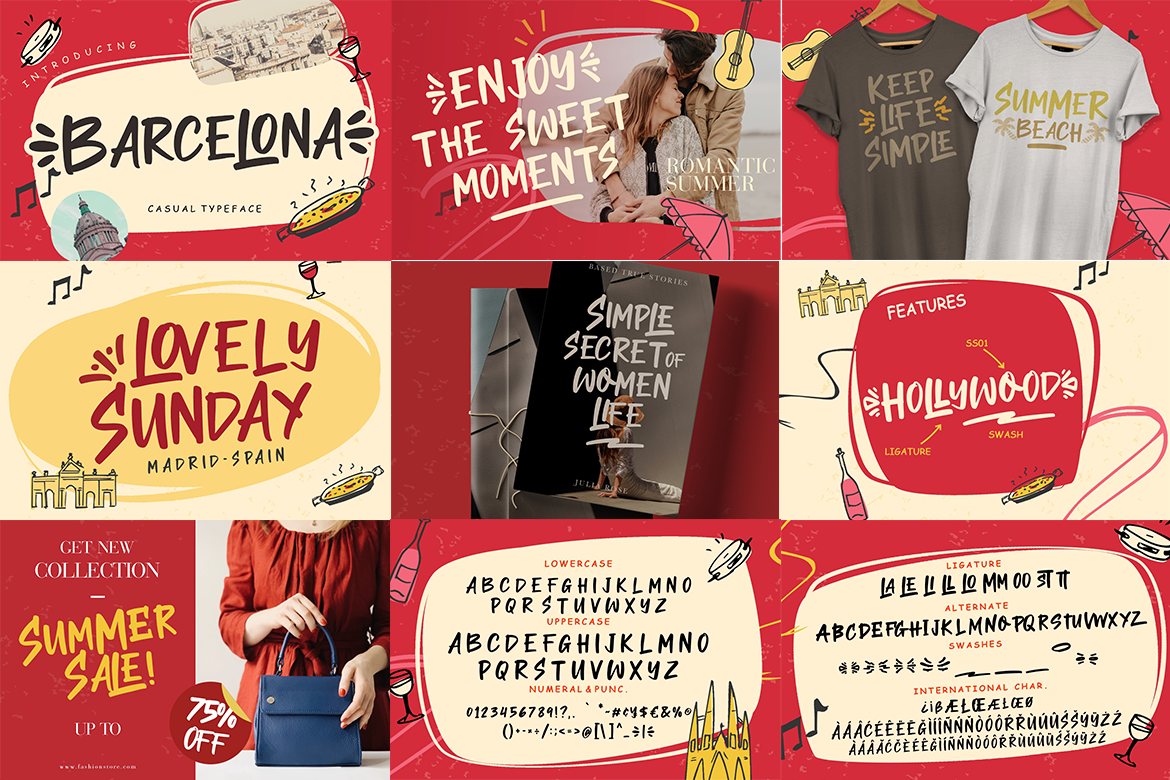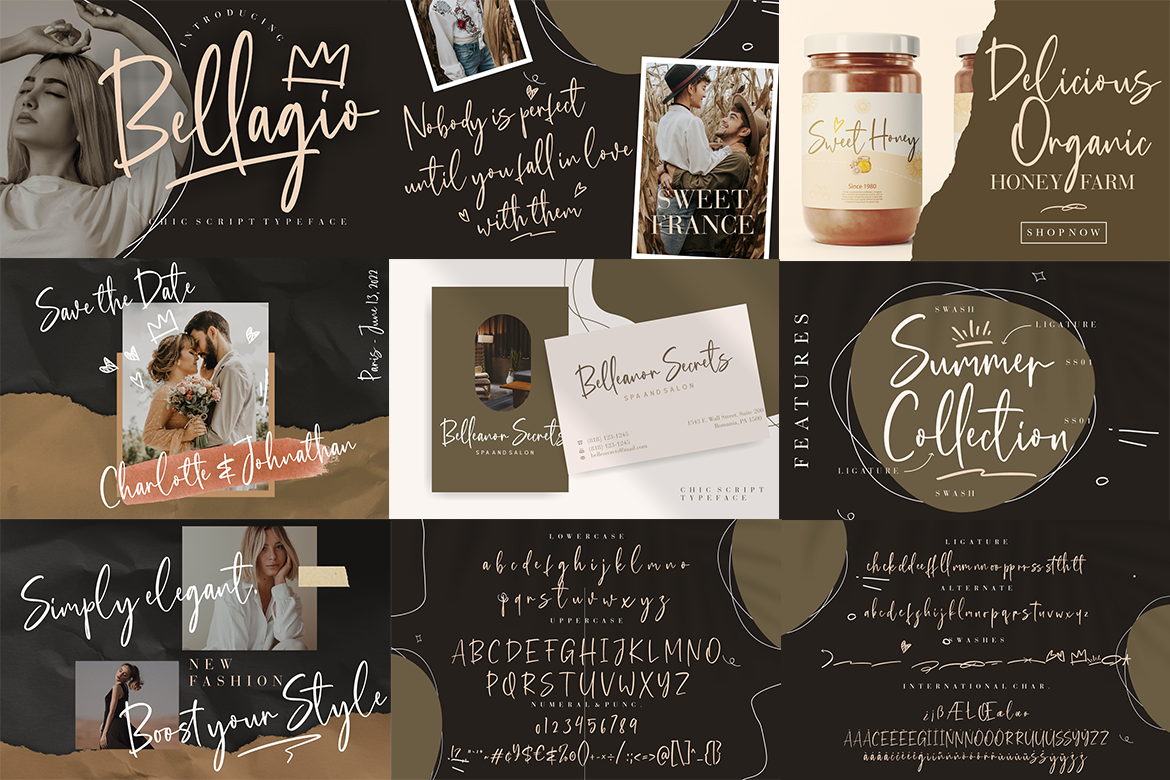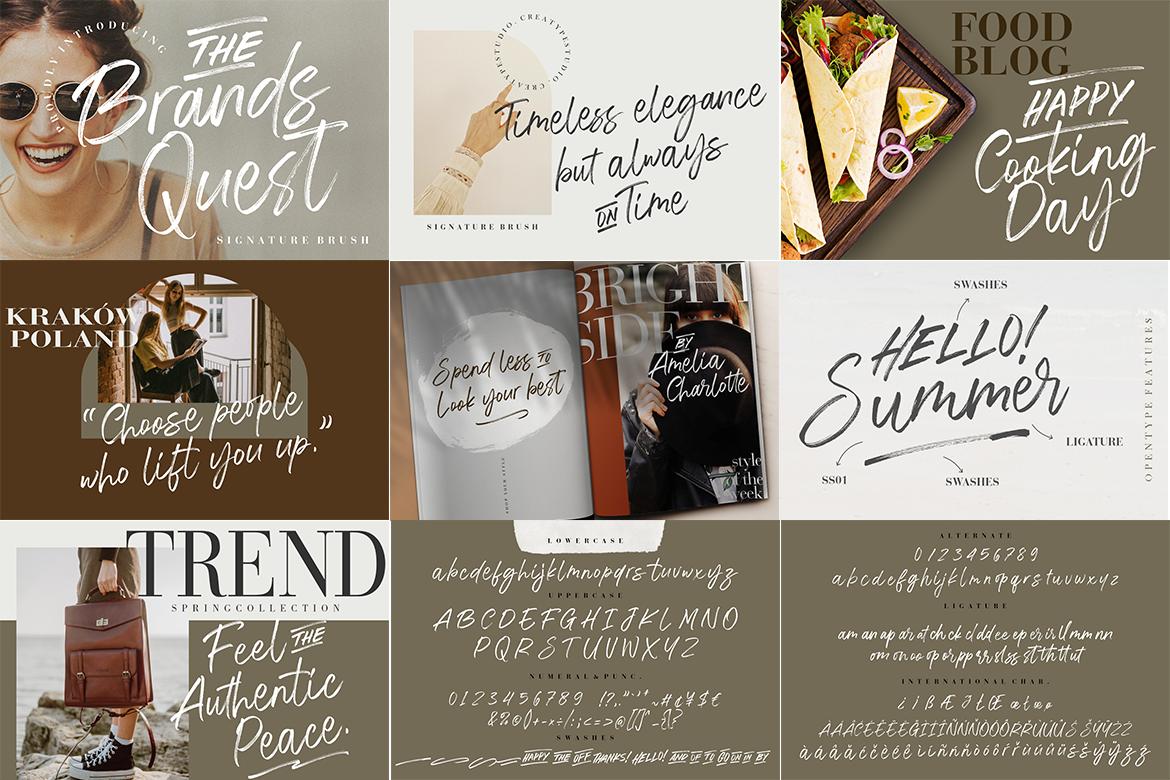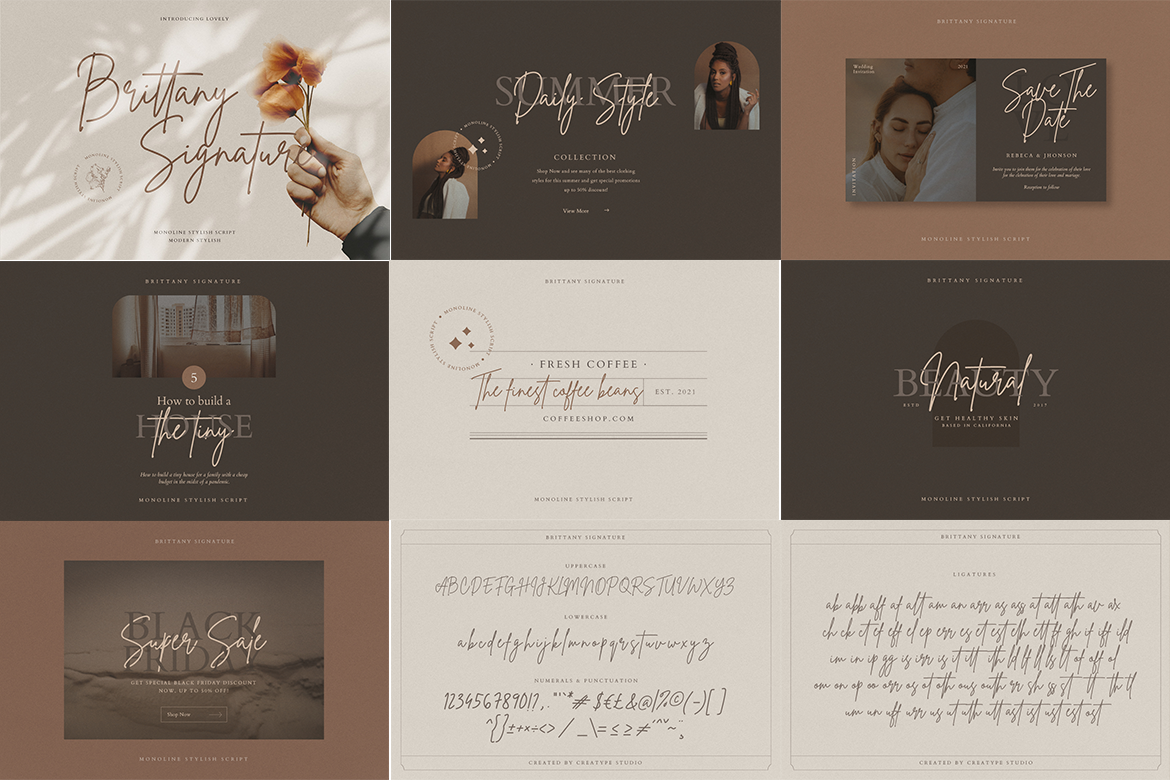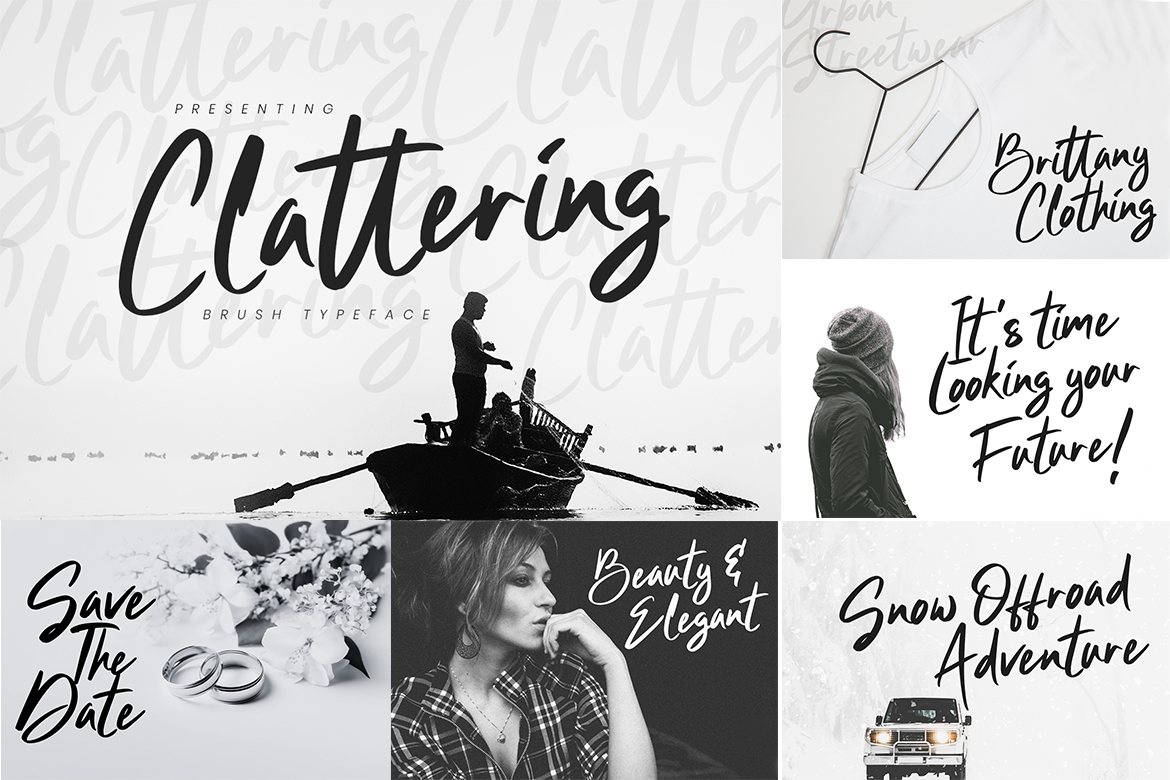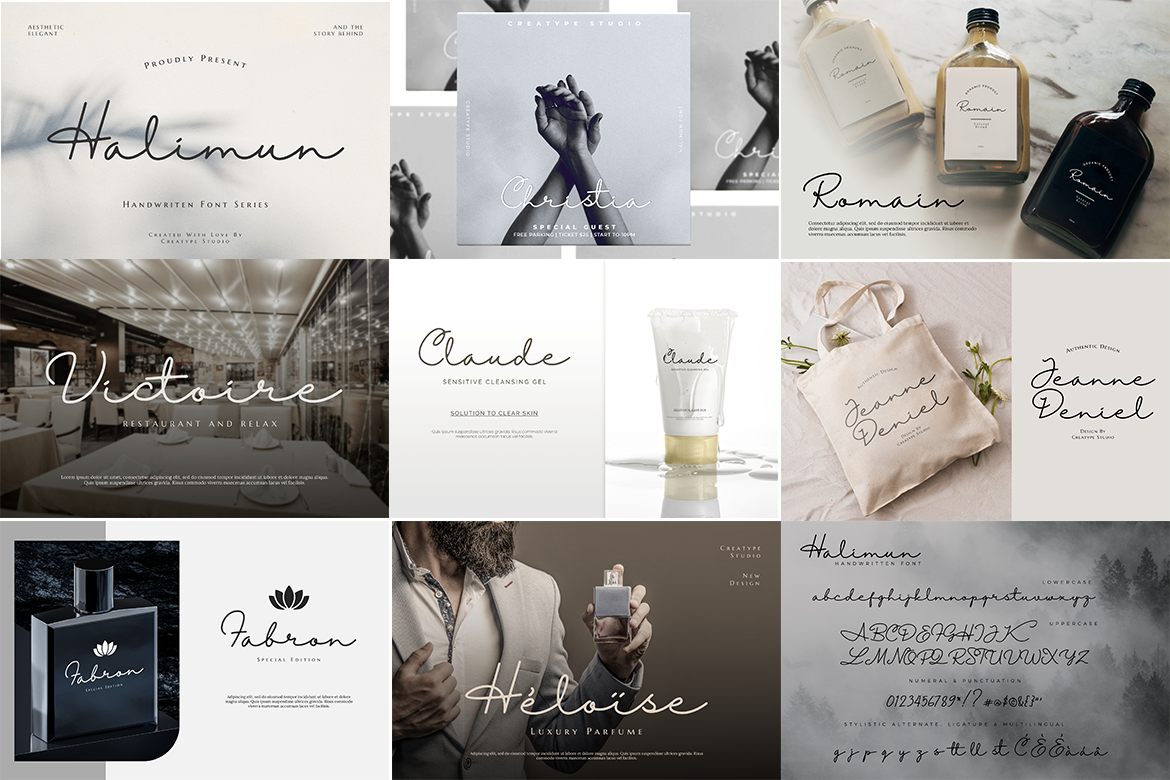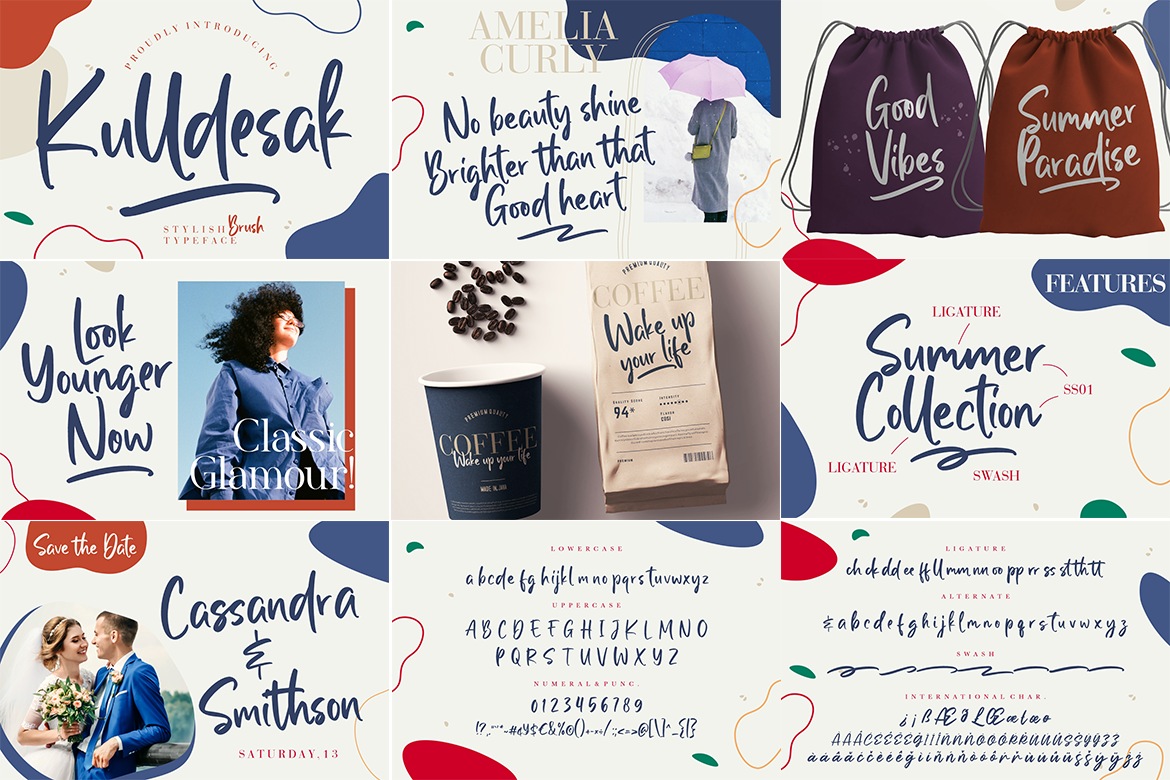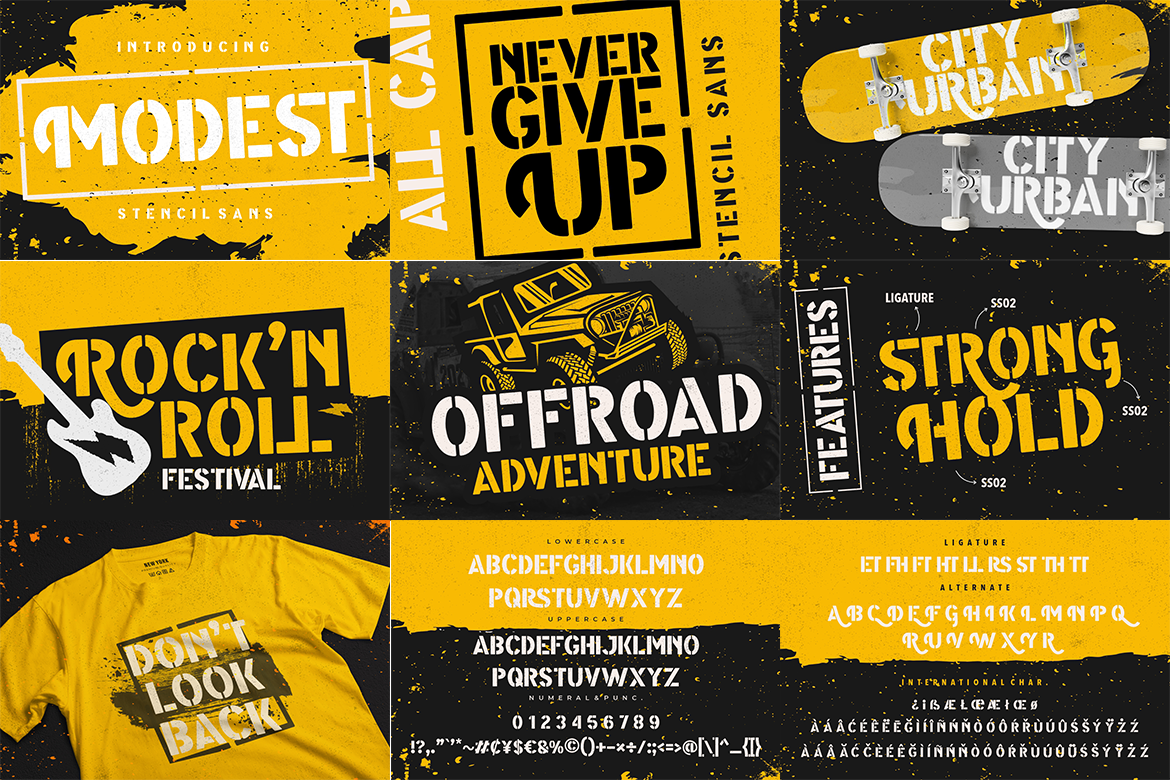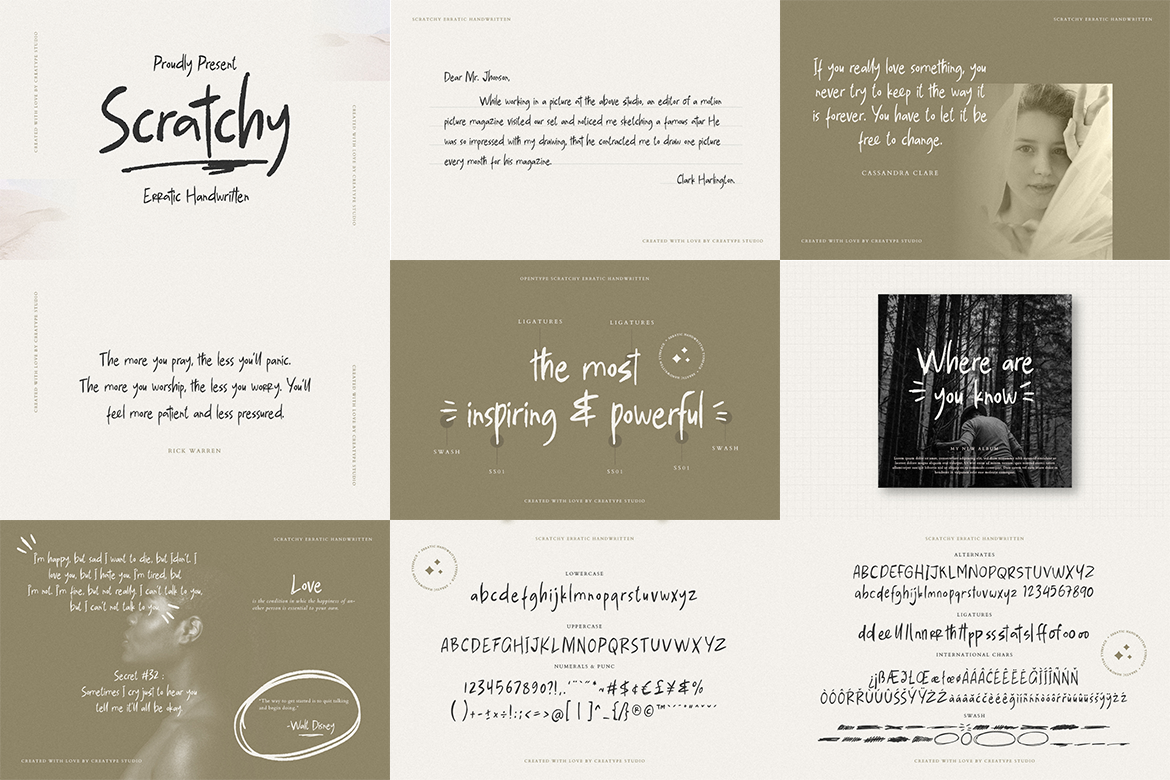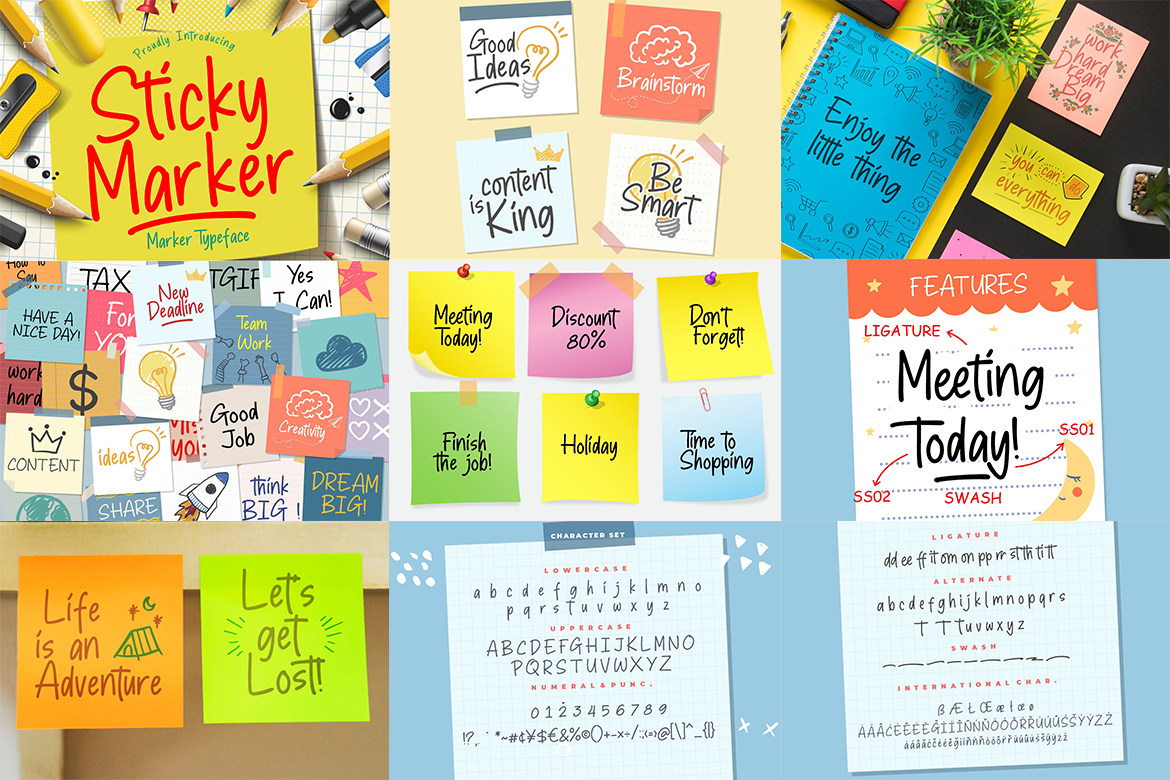
Since Canva has plenty of font collections, you might face a dilemma when choosing types to meet your design needs. In this post, we aim to add your collection while giving you a hitch to what you can expect from each of the best Canva fonts we have.
Hence, you can use them as your guide to future selection according to your project. Get a grip on the following list!
12 Best Canva Fonts Selection from Our Studio
We’ve assembled fonts for all your needs, whether it’s for the heading, subheading, cursive fonts, or even font suggestions to pair with your favourite ones. Without further ado, let’s check it out!
1. Scratchy
This font imitates handwriting in a wild way. It’s the best at conveying familiarity into your designs with its realistic and natural letter shapes and style. Scratchy is also lowkey scary, so it’s perfect for seasonal or themed content like Halloween-themed designs.
2. Brandsquest
Brandsquest is a pretty clever display font, it’s thick but airy with its brush texture. If you’re experimenting with multiple fonts, this is among the best Canva font pairings you can try.
3. Gistesy
It is a beautiful font that exudes positive vibes and elegance. Although Gistesy is a signature-type font with sleek and thin lines, it can act as a stand-alone cursive font, bringing no less attractiveness than bold ones.
4. Barcelona
Knowing how to pair the best Canva fonts can give your design a complete look. While rigid serif fonts add trustworthiness, pairing them with Barcelona’s unique letters can put some life into your design. Making it more lax and fun.
5. Bellagio
Bellagio is best described as an elegant script font with a feminine aura. Although it has sleek and graceful strokes, the overall look of the font can look irregular especially if you frequently alternate between uppercase and lowercase.
6. Twister
Twister is another inspiring handwriting font style. One letter might be closer or farther to the other creating a jumpiness of natural signature typeface. Still, you can create a neater look by taking the ligature style of Twister. It’s a good pair for invitation and photography design.
7. Brittany Signature
If you’re looking for a classy signature font, try Brittany Signature. Its slanted strokes make this font one of the best Canva font pairings for chunky or rounded typefaces. Expect them to create impressive head-turner logos or product designs.
8. Modest
Don’t get fooled by the name, this classic stencil sans font can easily catch some eyes. The font is suitable for your heading, it has a versatile style, namely to add a rebellious, military, or rugged vibe in social media or advertisement designs.
9. Halimun
While other font uses wide and extraordinary strokes to grab attention, this script font aims for subtle elegance. Among the best Canva fonts, it’s more modern and stylish than the usual monoline script. The stroke looks neat and deliberate to write everything classy.
10. Kulldesak
Kulldesak is a natural brush typeface in a playfully slack shape. Its high-contrast strokes bring a more fun and fresh feel to diverse kinds of design, including displays.
11. Clattering
Similar to Kulldesak, Clattering also has that thick and thin style. But this one is a cursive font with bold free-flowing strokes. You can experiment to craft a cohesive design by gluing this font with a classic serif font.
12. Sticky
The last one among our best Canva fonts is Sticky. It is a marker typeface with fun strokes to liven up every design. The monoline style makes it easy to read and suitable as a subheading font.
Get All the Best Canva Fonts in a Bundle!
We already packed these fonts for you in a bundle! Get these 12 best Canva fonts from our Canva Fonts Corporate Grade Quality Font Bundle. This comprehensive collection opens a wide range of creativity, from professional logo building, social media content, and package designs, to playful personal projects.